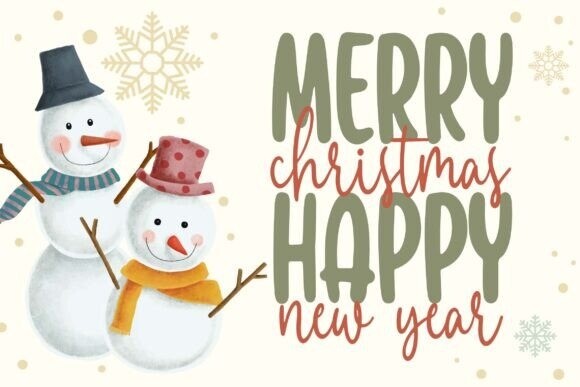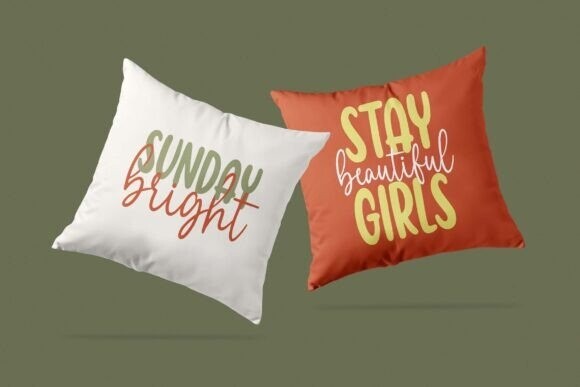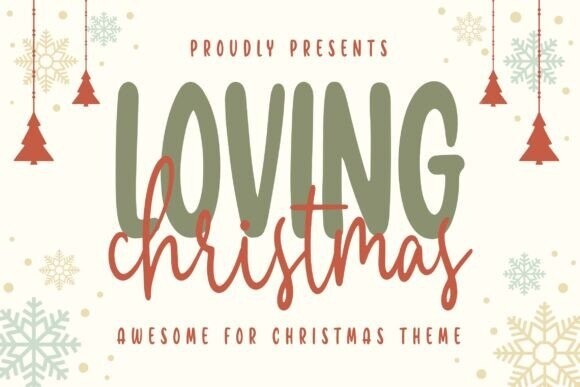
Loving Christmas Font
Loving Christmas Font a christmas font duo is made for any professional project branding, such as logotypes, watermarks, posters, branding, promotions, product packaging, etc. Every letter has a christmas design theme. This font comes in 2 font combinations.
Loving Christmas font includes a full set of food-themed uppercase and lowercase letters, numerals, and punctuation. This font has a christmas style. See the previews above to get some inspiration on how to use them.